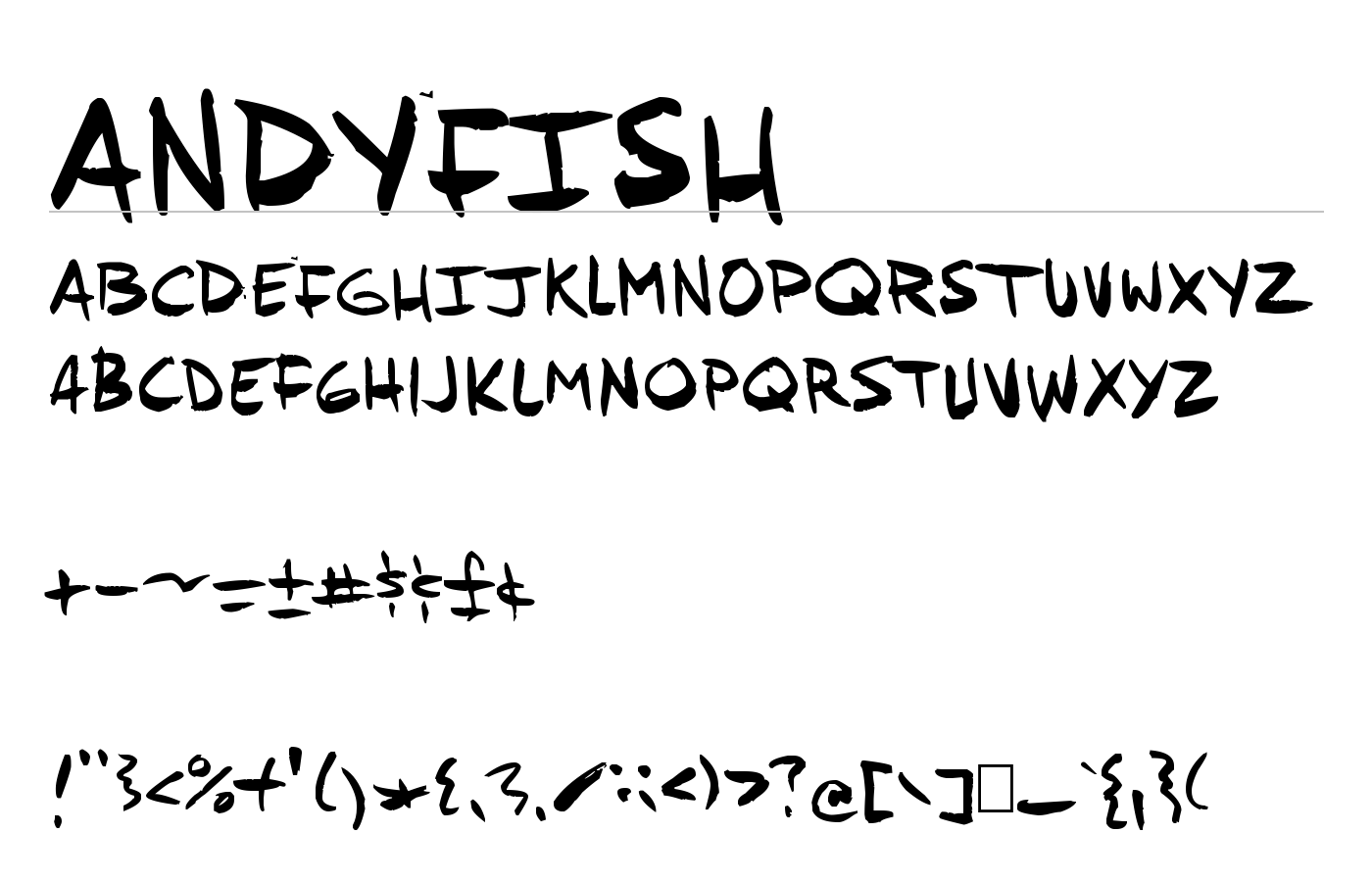
ANDYFISH is a bold, hand-drawn sans serif font with a playful and informal style. Its irregular, textured strokes give it a casual, energetic feel, making it perfect for creative projects, youth-oriented brands, and expressive headlines that need a personal touch. This font works well where a lively, approachable vibe is desired, such as posters, logos, and fun packaging.
ANDYFISH Font
About ANDYFISH Font